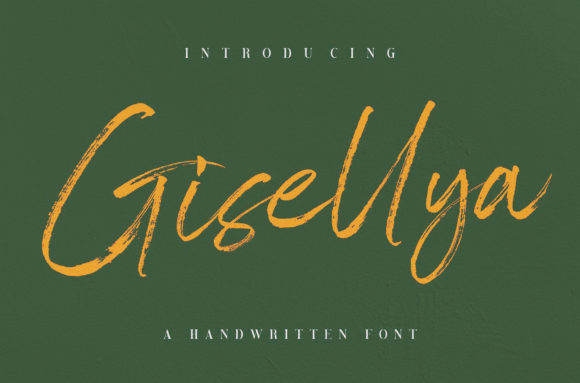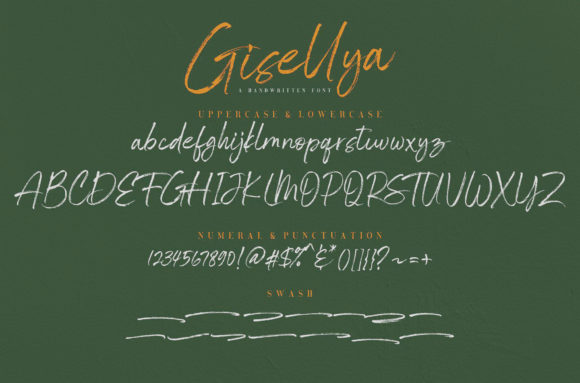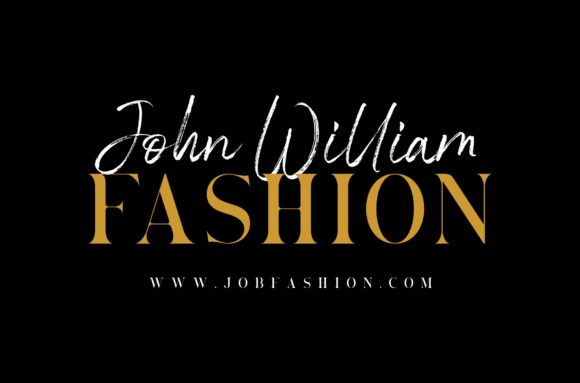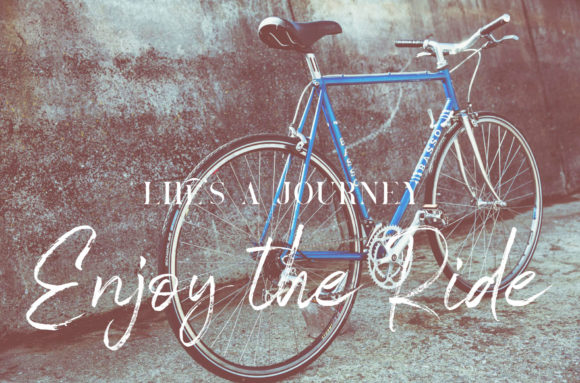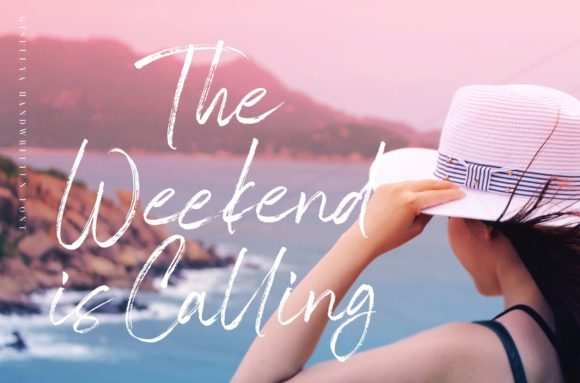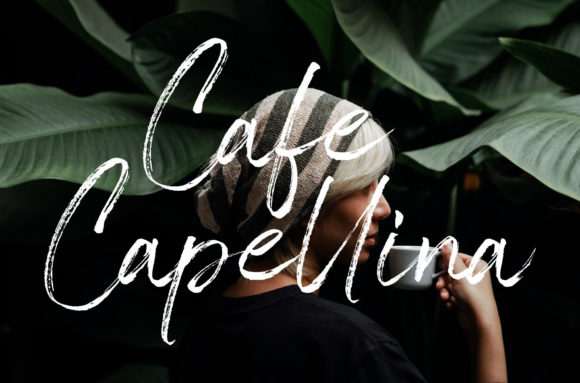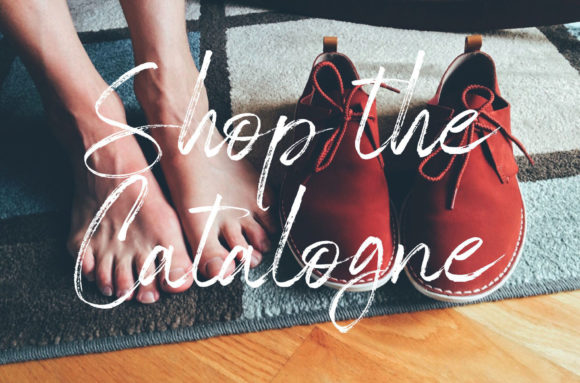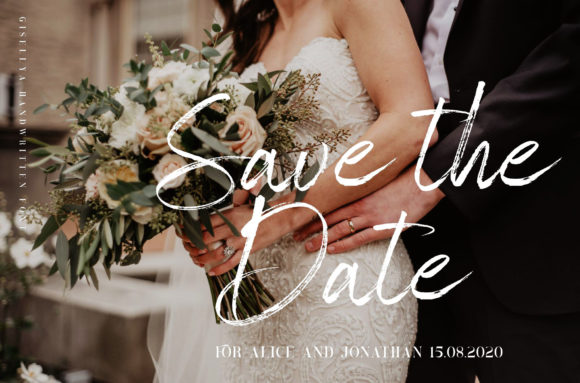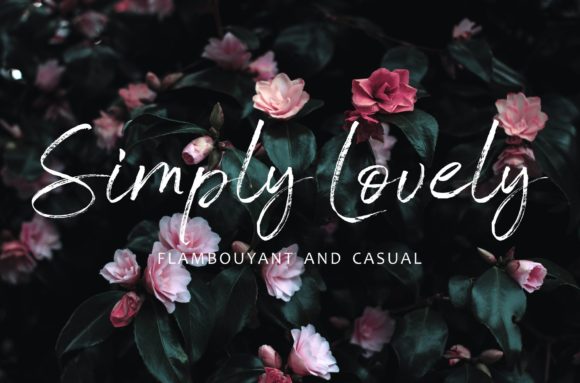
Gisellya Font
About Gisellya Font
Gisellya is a brushed handwritten font. It is suitable for creating any branding, product packaging, invitation, quote, t-shirt, label, poster, logo that you wish to develop.